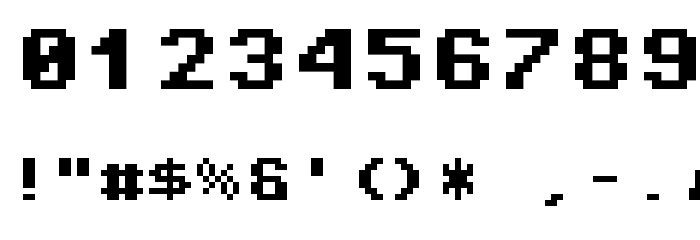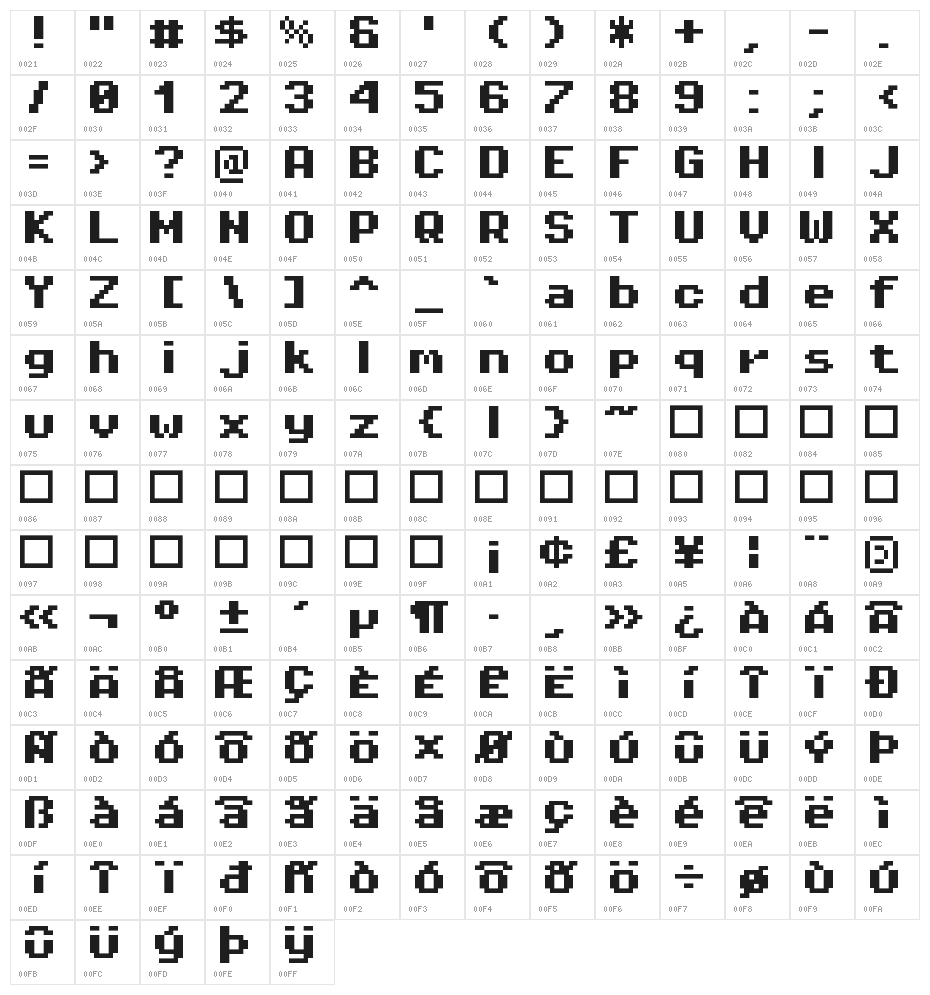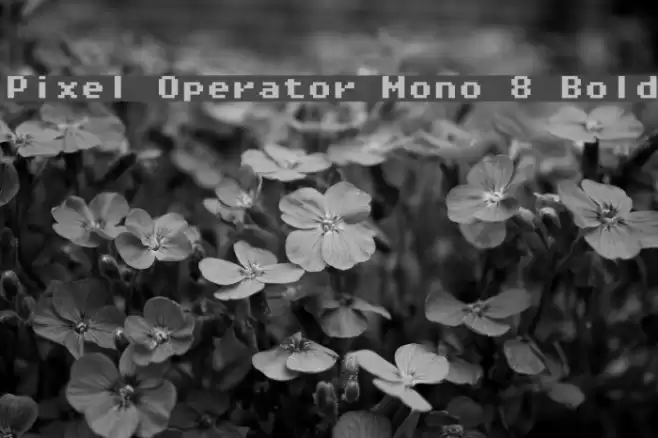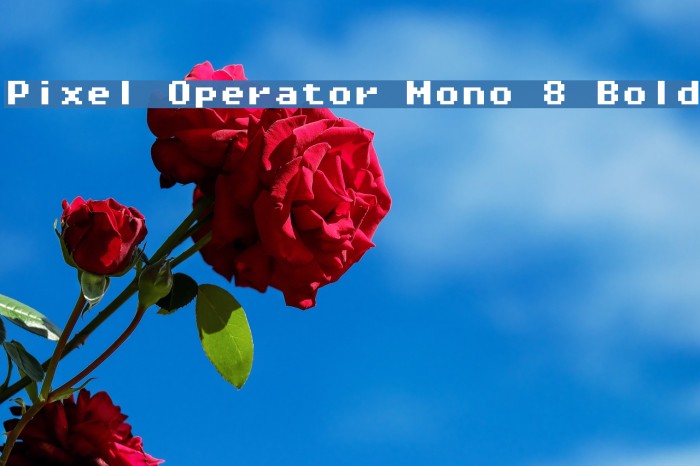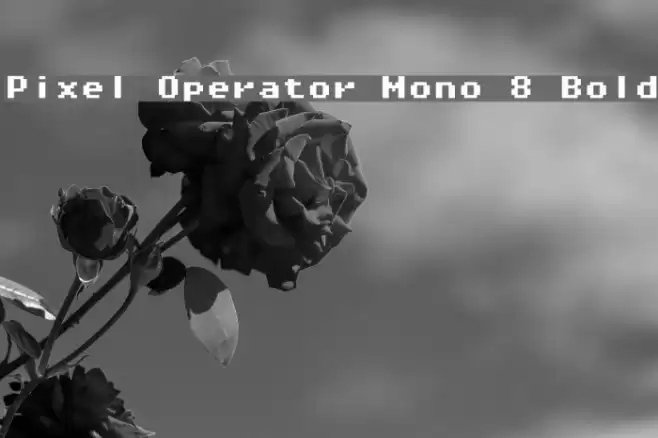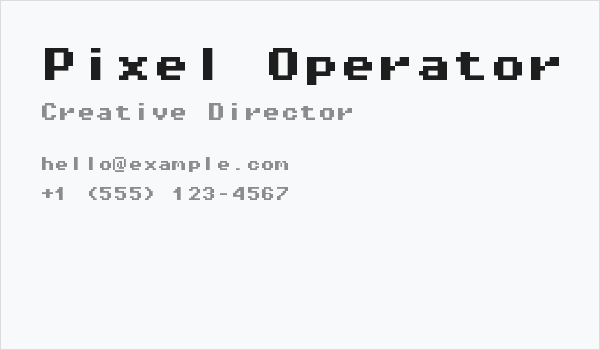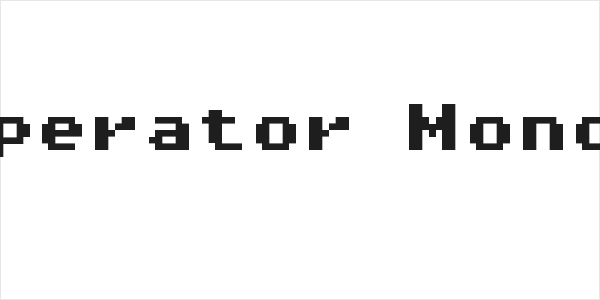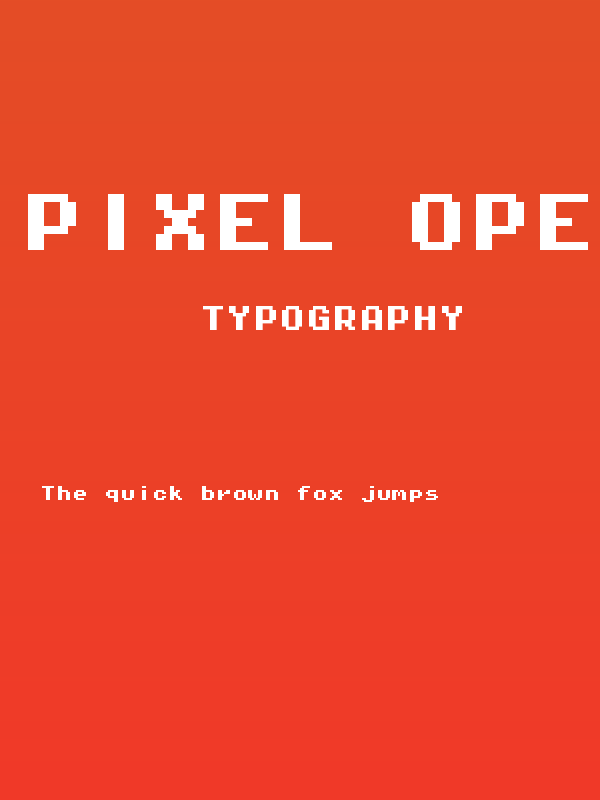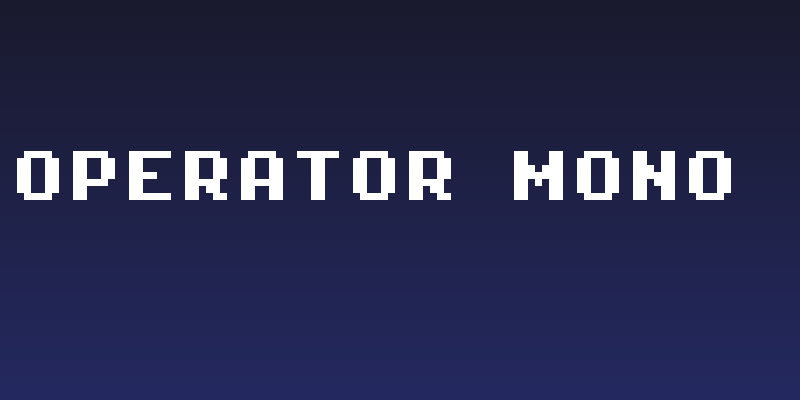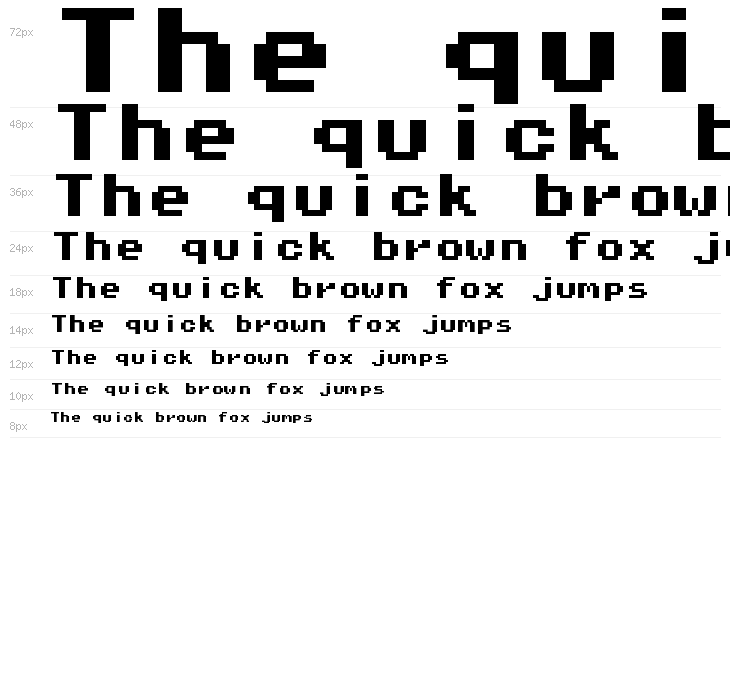
Pixel Operator Mono 8 Bold Font
Pixel Operator Mono 8 Bold Description
This font features a bold, pixelated design that is reminiscent of classic video game typography. Each character is constructed with a grid-like precision, giving it a distinctly digital and retro aesthetic. The uppercase and lowercase letters maintain a uniform height, contributing to its monospaced nature. The numbers and special characters are equally bold and pixelated, ensuring consistency across all glyphs. This font is ideal for projects that require a nostalgic or tech-inspired look, such as video game design, digital art, or retro-themed branding.
A bold, pixelated monospaced font with a retro digital aesthetic from Uncategorized fonts.
- Proposed Projects: Ideal for video game design, digital art, retro-themed branding, and tech-inspired projects.
- Overall Style: Retro, Digital
- Use Case: Headlines, Logos, Digital Art